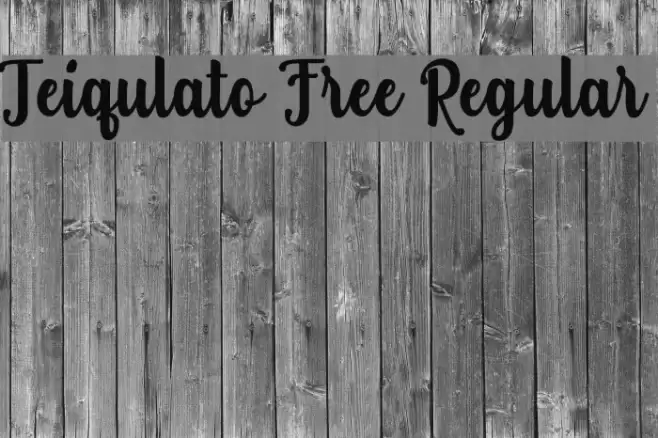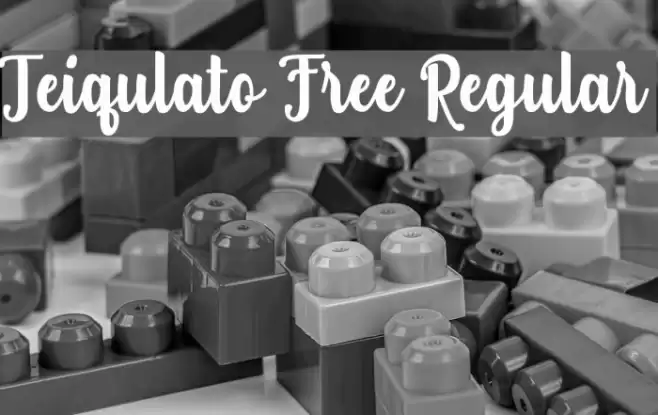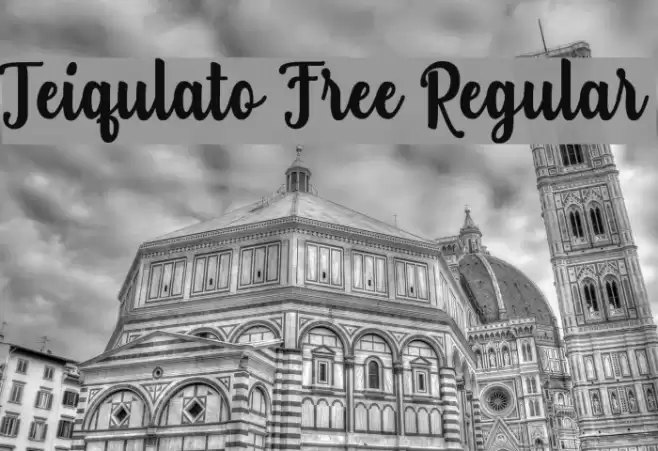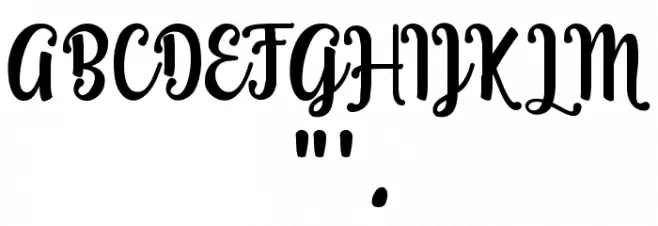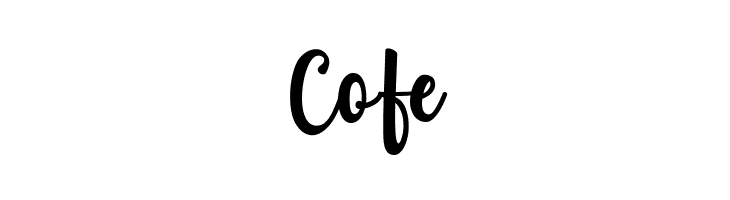
Teiqulato Free Regular Font
Teiqulato Free Regular Description
This font features a playful and flowing script style, characterized by its smooth, rounded curves and elegant swashes. The uppercase letters exhibit a bold presence with intricate loops and flourishes, while the lowercase letters maintain a consistent flow with a slightly more restrained design. The overall appearance is both whimsical and sophisticated, making it suitable for a variety of creative applications. The font's unique charm is enhanced by its decorative elements, which add a touch of personality and flair to any text. Its versatility allows it to be used in both formal and informal settings, providing a stylish and modern aesthetic.
A playful and flowing script font with elegant swashes and decorative elements from Uncategorized fonts.
- Proposed Projects: Ideal for wedding invitations, greeting cards, branding, and social media graphics.
- Use Case: Logos, Headlines, Invitations